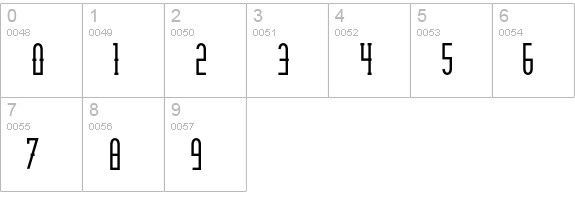
MexicanGothicM Font Details
Introducing MexicanGothicM font, a stunning typeface that beautifully combines traditional Mexican design elements with a modern Gothic twist. This unique font exudes elegance and sophistication, making it perfect for a wide range of design projects. With its intricate details and bold presence, MexicanGothicM font is sure to make a lasting impression. Best of all, MexicanGothicM font is completely free to download at FontsMarket.com. Whether you're working on a branding project, designing a poster, or creating a website, this versatile font is a must-have in your collection. Don't miss out on the opportunity to add MexicanGothicM font to your toolkit and elevate your designs to the next level. Download it now and let your creativity shine!